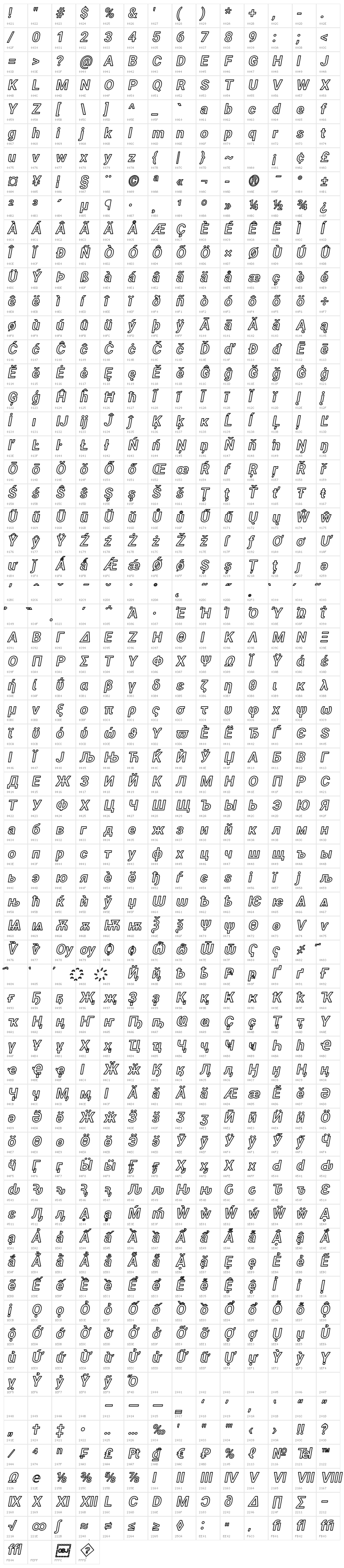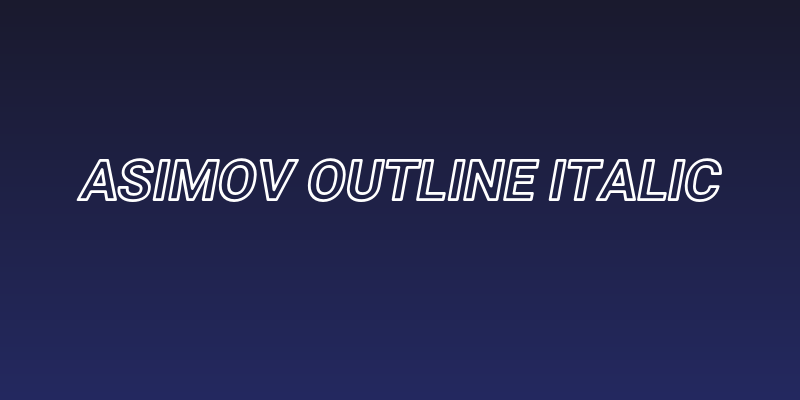
Asimov Outline Italic Font
Asimov Outline Italic Description
This font features a modern and sleek outline style with italicized characters, giving it a dynamic and futuristic appearance. The uppercase and lowercase letters are well-proportioned, maintaining a consistent stroke width throughout. The numerals and special characters are designed to match the overall aesthetic, ensuring uniformity across all elements. The italic slant adds a sense of motion and elegance, making it suitable for contemporary designs. The outline effect provides a unique visual appeal, making the text stand out without being overly bold.
| Use Case | Headlines, Logos, Digital media |
| Proposed Projects | Ideal for futuristic branding, tech-related projects, modern posters, and digital media. |